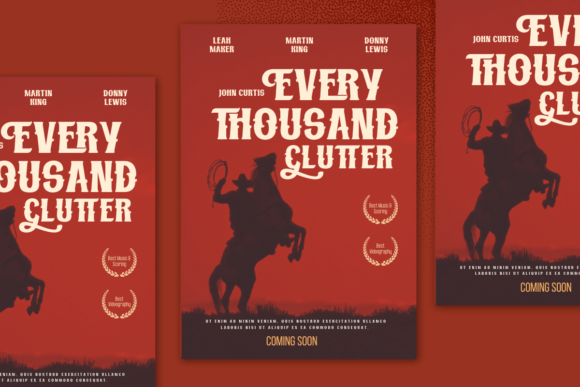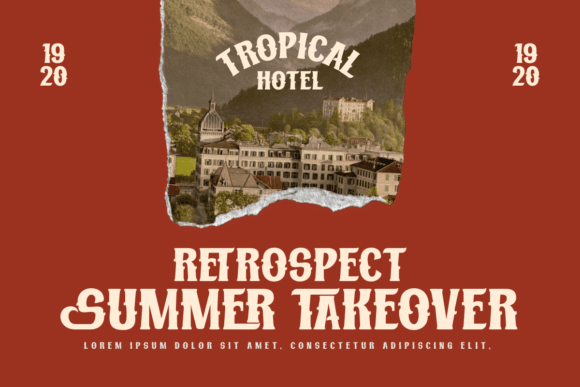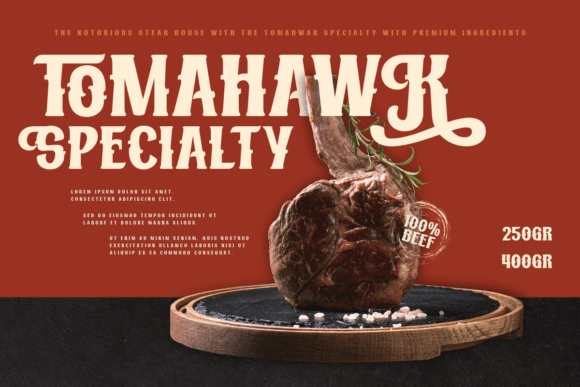
Introduction to Ruihant Font
Have you ever found yourself in the midst of a creative project, staring at a blank canvas with a spark of inspiration but no clear direction? It’s a moment we’ve all experienced, and it’s precisely when we need the right design resource to bring our ideas to life. That’s where the Ruihant Font comes in – a timeless and versatile typeface that adds a touch of classic charm to any project.
Whether you’re working on a vintage-themed design, a retro-inspired logo, or a high-quality graphic, the Ruihant Font is an excellent choice. Its premium features, including ligature, alternative, and multilingual support, make it an invaluable asset for designers. With its straightforward and compact form, this font enables you to create well-structured and effective designs that truly stand out.
Key Features of Ruihant Font
- Ruihant Font is a high-quality design resource ideal for creative projects that require a unique and stylish touch.
- It features a transparent background, allowing designers to easily incorporate it into various backgrounds and designs.
- The Ruihant Font family includes multiple styles and weights, providing designers with a range of options to suit their creative project needs.
- This font is designed with high resolution, making it suitable for use in large-scale designs and prints.
- Ruihant Font is a versatile design resource that can be used in a wide range of creative applications, from graphic design to digital art.
Honest Review: Ruihant Font
As a designer, I’m always on the lookout for unique and high-quality design resources. The Ruihant Font caught my attention, and I decided to give it a try.
- ✨ Unique and creative design: The Ruihant Font has a distinctive and modern feel to it, making it perfect for any creative project that requires a touch of sophistication.
- ✨ High-quality glyphs: The font is well-designed, with clear and crisp glyphs that are easy to read, even on small screens.
- ✨ Transparent background: This is a nice touch, as it makes it easy to layer the font over other design elements without worrying about a distracting background.
- ⚠️ Limited character set: While the font has a good selection of glyphs, it’s not a complete alphabet, which might be a limitation for some designers.
- ⚠️ Not suitable for all font sizes: While the font looks great at larger sizes, it can become blurry and difficult to read at smaller sizes.
Use Ruihant Font for your creative project to give it a unique and stylish look. This free download font is perfect for designs that require a modern and sleek feel. Make sure to experiment with different font sizes and styles to get the most out of it.
Ruihant Font is commonly used for graphic design projects, social media graphics, and presentations. It’s also a great choice for creating branding materials, such as business cards and brochures. With its high-quality design and transparent background option, Ruihant Font is a versatile design resource for any creative project.